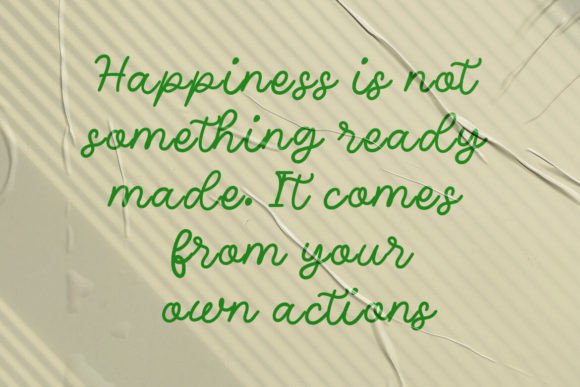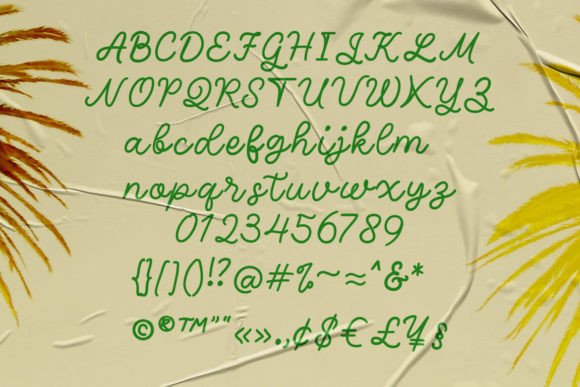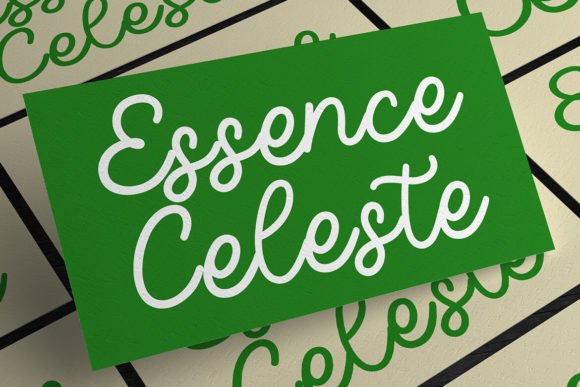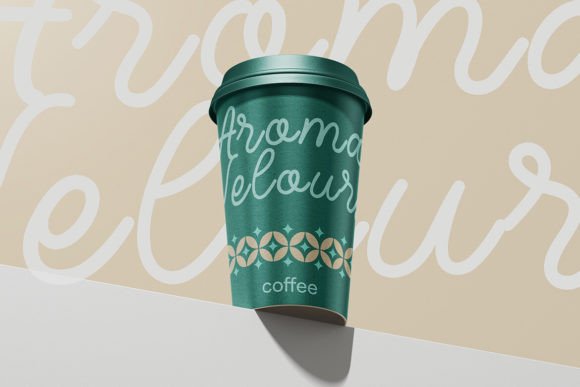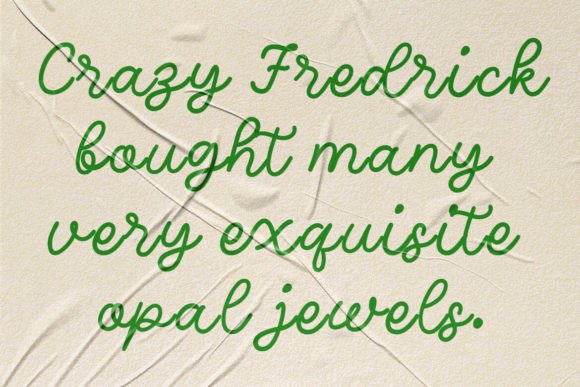
Introduction to Seraphic Font
As you sit with your sketchbook and pencils, the creative juices start flowing. You’re working on a special project – a wedding invitation for your best friend. The pressure is on, but you’re determined to make it perfect. That’s when you stumble upon the perfect design element – a stunning handwritten font. And that’s exactly what we’re going to talk about today – the Seraphic Font.
With its elegant and sophisticated feel, the Seraphic Font is a design resource that can elevate any creative project. Whether you’re working on a logo, business card, or a heartfelt thank you card, this font is sure to bring a touch of warmth and personality to your design. And the best part? It’s available for free download, making it an accessible and high-quality addition to your design toolkit.
Key Features of Seraphic Font
- High-quality design resource with a transparent background, perfect for creative projects.
- Customizable and scalable, allowing users to adjust the size and resolution to suit their design needs.
- Unique, elegant, and sophisticated design style, ideal for luxury brands, high-end products, and premium services.
- Comprehensive character set, including uppercase and lowercase letters, numbers, and punctuation marks.
- Designed to be legible at various resolutions, ensuring optimal readability on digital screens and print materials.
Honest Review: Seraphic Font
As a designer, I’m always on the lookout for high-quality design resources to elevate my creative projects. Recently, I had the chance to work with the Seraphic Font, and I must say, it’s been a game-changer.
- ✨ The font’s sleek and modern design makes it perfect for a wide range of creative projects, from digital interfaces to print materials.
- ✨ The transparent background allows for seamless integration with various design elements, giving me more flexibility in my design process.
- ⚠️ The font may not be suitable for projects that require a more traditional or serif font style.
- ⚠️ Some users may find the font’s modern design too bold or overpowering.
Overall, I’m thoroughly impressed with the Seraphic Font. Its high quality, versatility, and free download make it a valuable addition to any designer’s toolkit. Whether you’re working on a digital project or a print campaign, the Seraphic Font is definitely worth considering.
Use the Seraphic Font in combination with other design elements to create a cohesive and professional look. Experiment with different font sizes and styles to add visual interest. Don’t be afraid to add a transparent background to make your design stand out.
The Seraphic Font is perfect for wedding invitations, business cards, and other high-end design projects. Its elegant and sophisticated design makes it ideal for any creative project that requires a touch of luxury.
Is the Seraphic Font a high-quality design resource?
Yes, the Seraphic Font is a high-quality design resource, carefully crafted to provide a unique and elegant aesthetic for your creative project. With its smooth lines and precise typography, it’s perfect for a wide range of design applications, from logos to typography-based art.